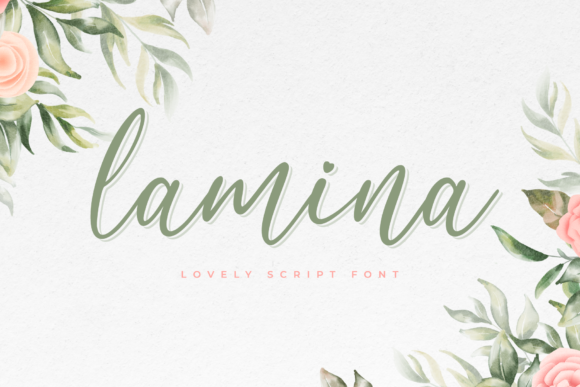
Dive into the world of sophistication and timeless elegance with Lamina Font, the captivating script font that exudes an air of modern calligraphy. Crafted by the renowned Typobia, Lamina is not just a font; it's an experience that will transform your creative projects into masterpieces.
With its perfectly balanced strokes and harmonious curves, Lamina dances across the page, leaving a trail of visual delight. Its carefully designed characters, neither too thin nor too thick, create a symphony of visual balance and variety, ensuring that your designs stand out with a distinct charm.
Lamina is the perfect partner for designers seeking to create eye-catching shirt designs. Its contemporary atmosphere and impeccable form bring a touch of sophistication to any project, making your designs irresistible to customers.
Whether you're a seasoned designer or just starting, Lamina is the perfect choice for adding a touch of timeless elegance to your work. Its user-friendly nature makes it accessible to designers of all levels, allowing you to create stunning designs effortlessly.
Lamina is more than just a font; it's an investment in creativity. Its versatility extends beyond shirt designs, making it ideal for invitations, branding, logos, and any project that demands a touch of sophistication.
So, embark on a creative journey with Lamina Font and elevate your designs to new heights. Let your imagination soar and create visual masterpieces that leave a lasting impression.